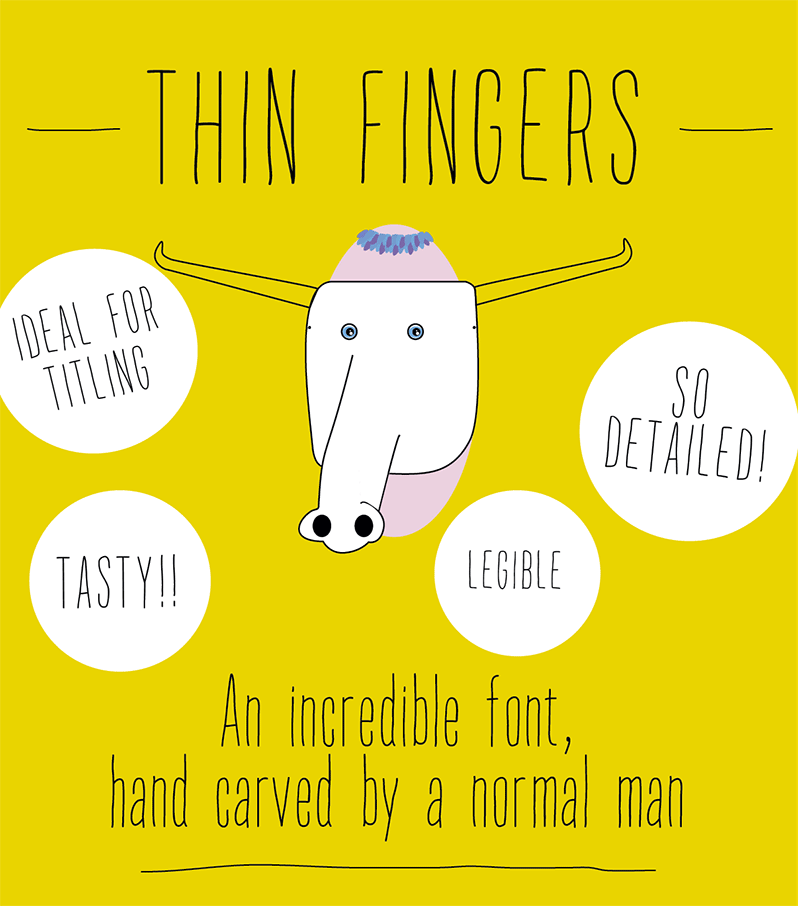
Thin Fingers is an incredibly classy handwritten font as it catches the eye immediately thanks to a strong legibility. Very stretched and thin, it is ideal for any titling matter (specially in advertisements, book front covers) wether for print or digital purposes. This font is free for personal use but please buy the licence for any commercial purpose. Please visit this page to buy a license for 5€ only: http://bibliopolae.tictail.com/product/thin-fingers-font |